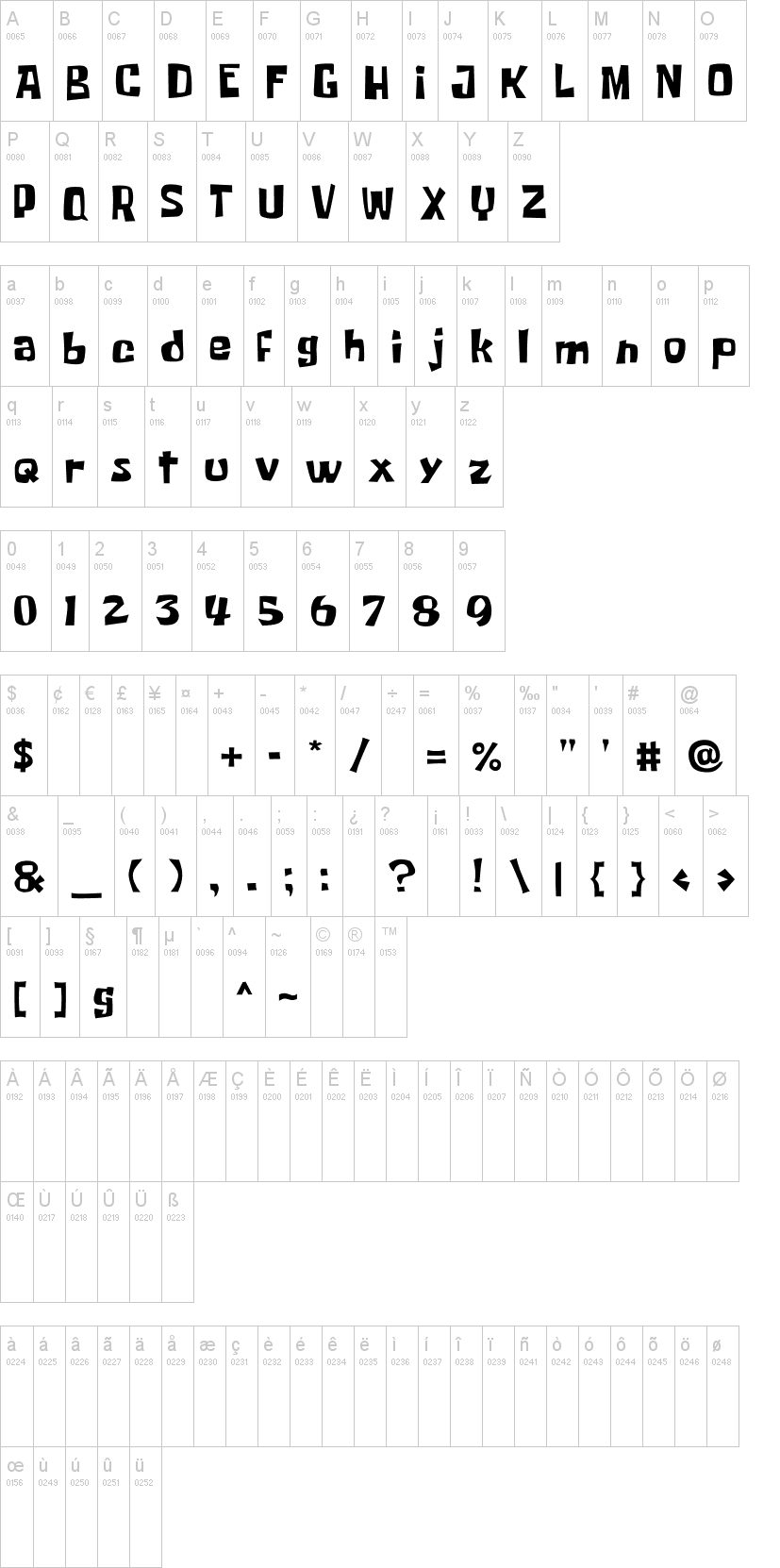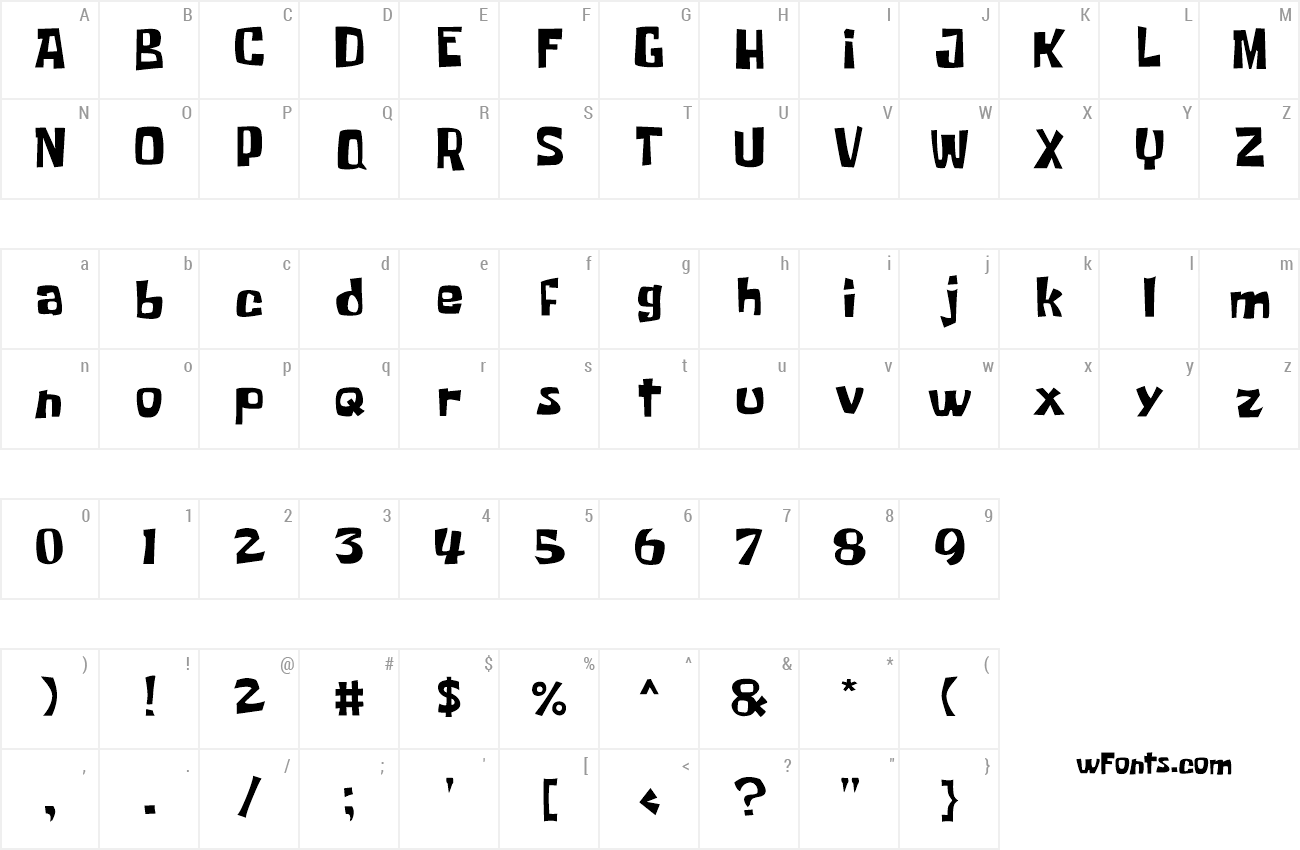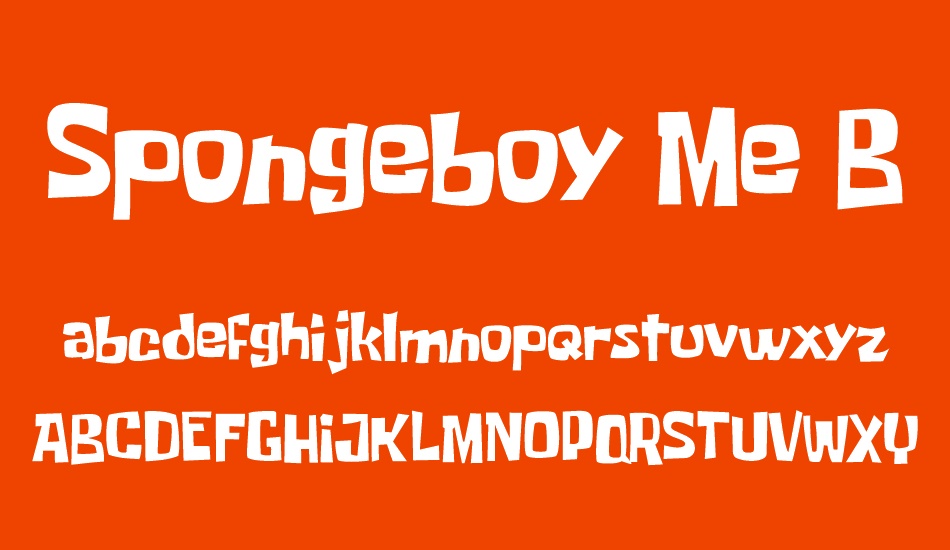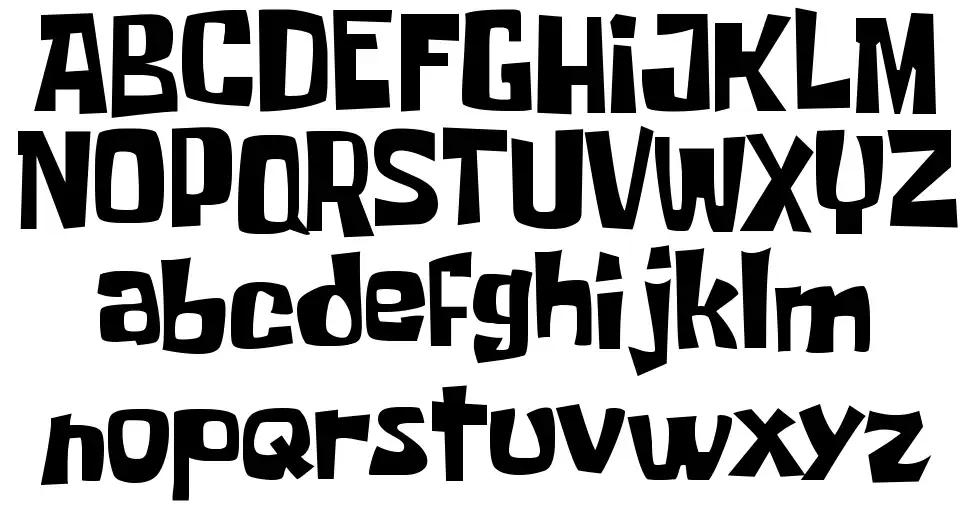
Spongeboy Me Bob Font
Spongeboy Me Bob Font - Spongeboy me bob font is too much useful for satisfying the designer. Web spongeboy me bob font. Web converted direct from letters embedded in the old spongebob movie website, this is the most accurate.
Web spongeboy me bob font. Web converted direct from letters embedded in the old spongebob movie website, this is the most accurate. Spongeboy me bob font is too much useful for satisfying the designer.
Spongeboy Me Bob Font
Spongeboy me bob font is too much useful for satisfying the designer. Web converted direct from letters embedded in the old spongebob movie website, this is the most accurate. Web spongeboy me bob font.
Web spongeboy me bob font. Spongeboy me bob font is too much useful for satisfying the designer. Web converted direct from letters embedded in the old spongebob movie website, this is the most accurate.
Spongeboy me bob font is too much useful for satisfying the designer. Web spongeboy me bob font. Web converted direct from letters embedded in the old spongebob movie website, this is the most accurate.
Spongeboy me bob font is too much useful for satisfying the designer. Web converted direct from letters embedded in the old spongebob movie website, this is the most accurate. Web spongeboy me bob font.
Web converted direct from letters embedded in the old spongebob movie website, this is the most accurate. Spongeboy me bob font is too much useful for satisfying the designer. Web spongeboy me bob font.
Spongeboy me bob font is too much useful for satisfying the designer. Web converted direct from letters embedded in the old spongebob movie website, this is the most accurate. Web spongeboy me bob font.
Web spongeboy me bob font. Web converted direct from letters embedded in the old spongebob movie website, this is the most accurate. Spongeboy me bob font is too much useful for satisfying the designer.
Web converted direct from letters embedded in the old spongebob movie website, this is the most accurate. Web spongeboy me bob font. Spongeboy me bob font is too much useful for satisfying the designer.
Spongeboy Me Bob Font Is Too Much Useful For Satisfying The Designer.
Web converted direct from letters embedded in the old spongebob movie website, this is the most accurate. Web spongeboy me bob font.